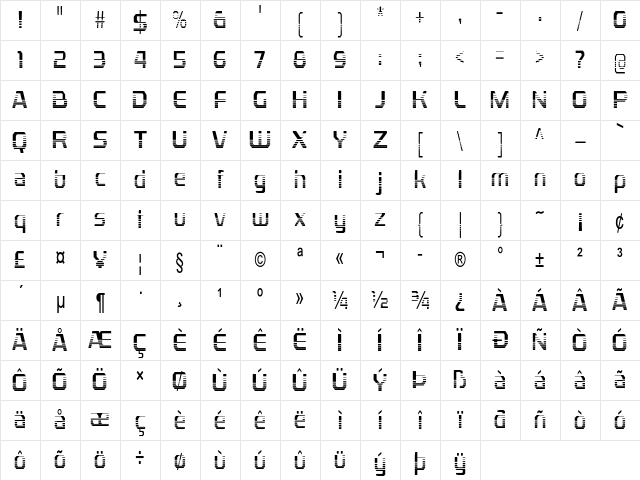
Ventro Condensed Regular
Style: Condensed Regular
Ventro Family
Ventro Condensed Regular
Design Context for Ventro
Ventro is a composed and adaptable typeface that performs quietly and consistently across a wide range of design contexts. Its narrow stance lets it pack a punch even in space-constrained designs.